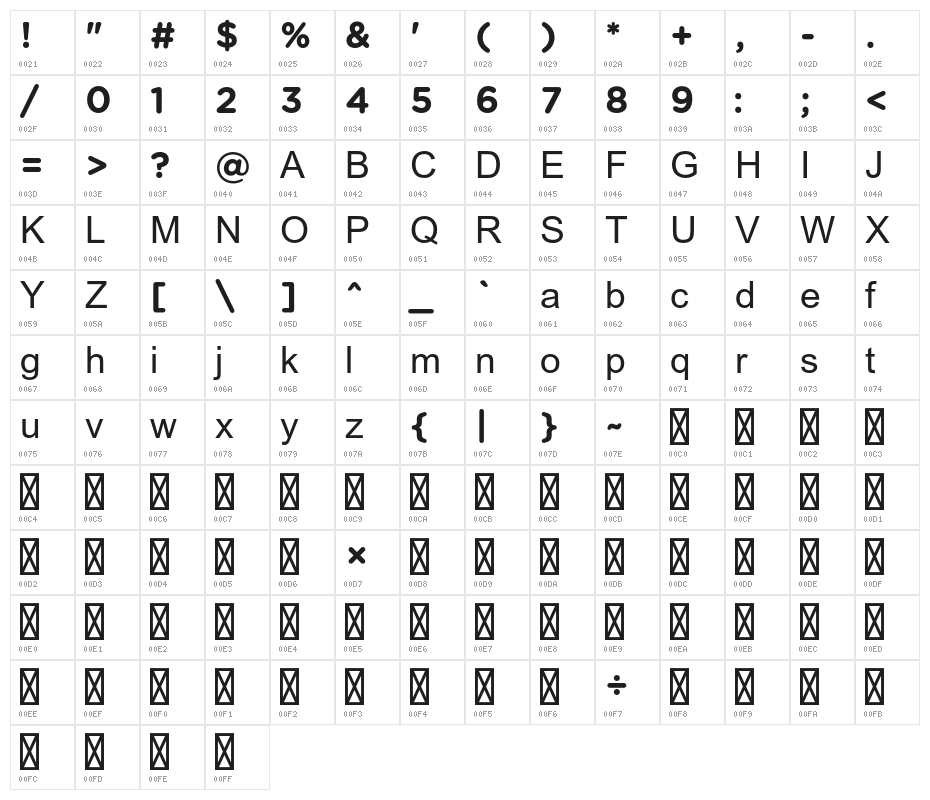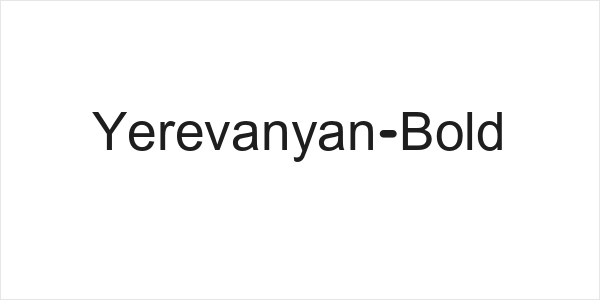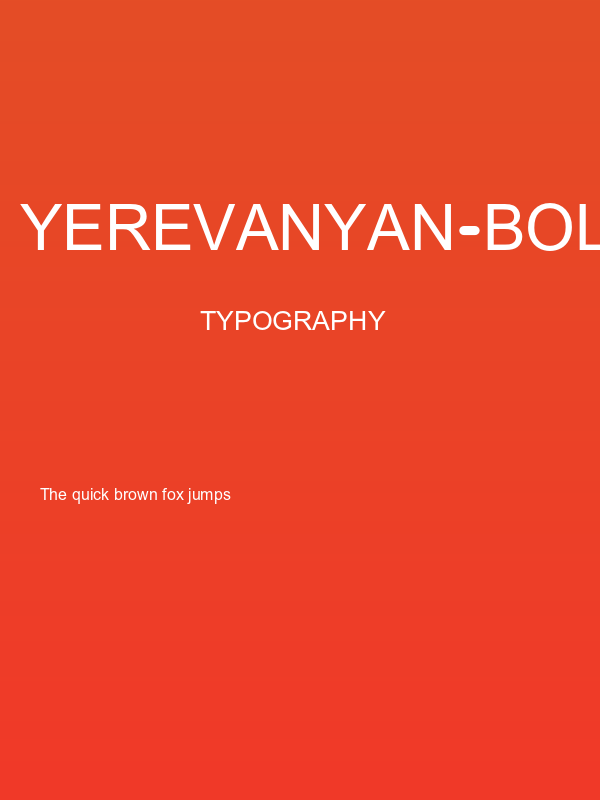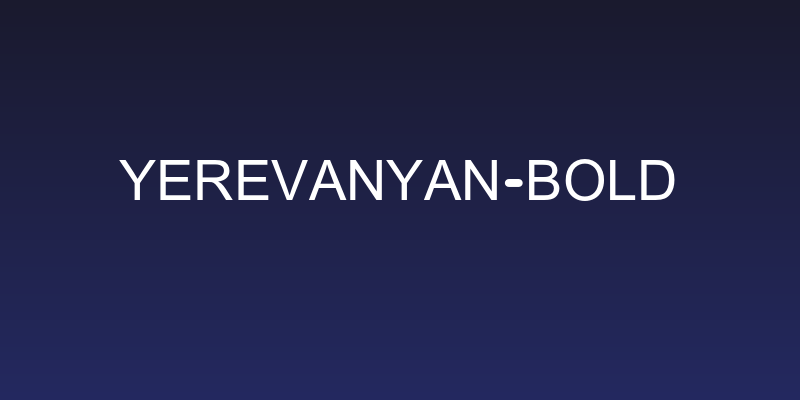
Yerevanyan-Bold Font
Yerevanyan-Bold Description
This typeface features a clean and modern sans-serif design with uniform stroke widths, providing a balanced and professional appearance. The characters are well-proportioned, with a consistent height and width that ensures readability across various sizes. The uppercase letters are bold and assertive, while the lowercase letters maintain a friendly and approachable feel. The numerals are clear and distinct, making them suitable for both digital and print media. Special characters are included, offering versatility for different contexts and uses.